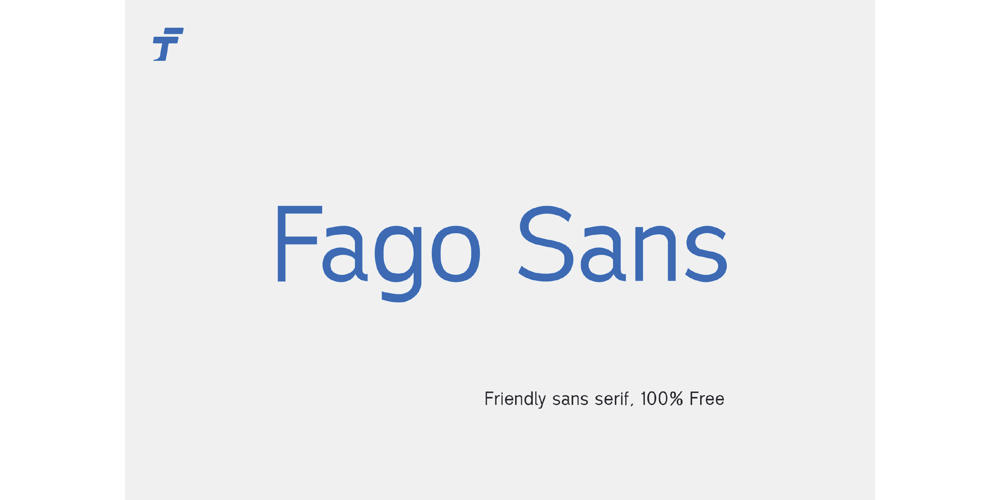
Fago Sans Serif Font Font Family was designed by Adrian Syauqi and published by Firstype Studio. Fago Sans Serif Font contains 1 styles and family package options. Introducing Fago Sans, a remarkable sans-serif typeface that effortlessly balances exceptional readability with a friendly, modern aesthetic. Crafted for versatility and designed with the user in mind, Fago Sans is not just visually appealing but also freely available for all your design needs.Readability Above All:At its core, Fago Sans prioritizes readability. Each letterform is meticulously crafted to ensure clarity, making it an ideal choice for a wide range of applications. Whether in body text or headlines, Fago Sans maintains its legibility in various contexts.Friendly and Approachable:What sets Fago Sans apart is its inherent friendliness. The gentle curves and balanced proportions of each character create a welcoming and approachable appearance. This makes it suitable for projects that require a modern, yet personable touch.A Modern Classic:Fago Sans embodies the essence of modern design. Its clean lines, absence of unnecessary embellishments, and straightforward elegance make it a timeless choice. Whether used in print or digital media, Fago Sans adds a touch of contemporary sophistication.100% Free to Use:One of the standout features of Fago Sans is that it’s available to everyone, completely free of charge. This means you can use it in personal, commercial, and educational projects without any licensing fees or restrictions. It’s our way of supporting creativity and accessibility in design.Versatility in Application:From website design to branding, from brochures to mobile apps, Fago Sans is a versatile typeface that adapts seamlessly to various design needs. Its extensive character set covers multiple languages, making it suitable for global projects.